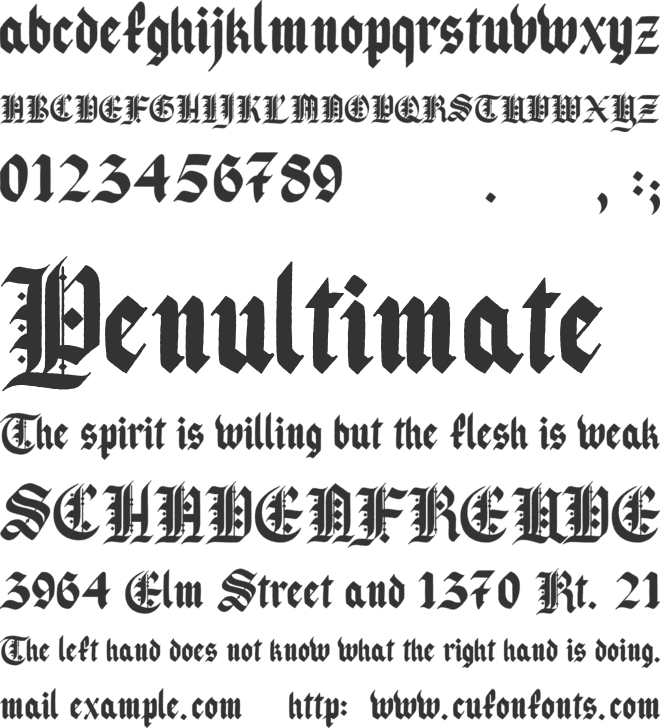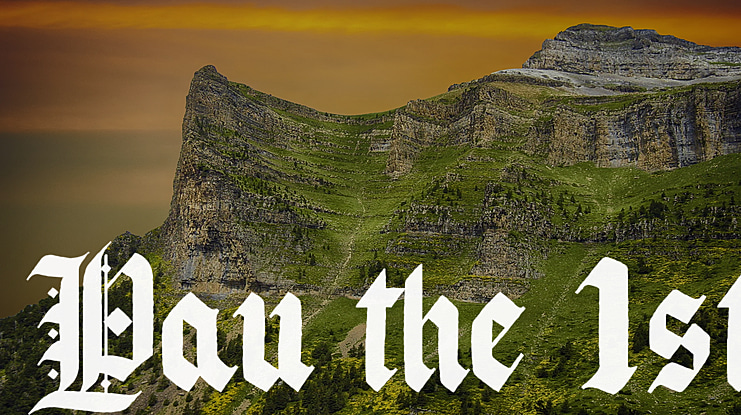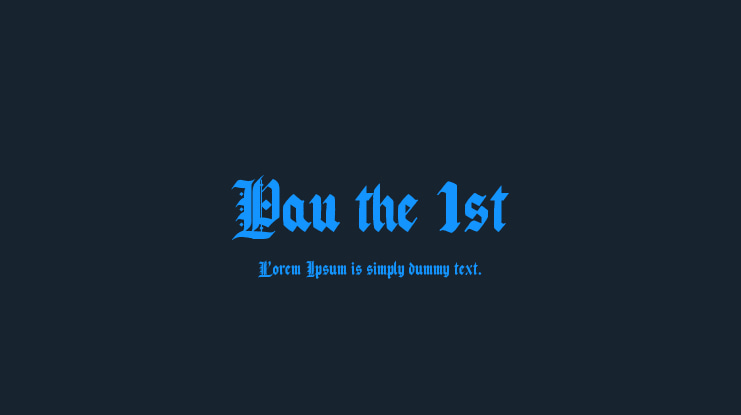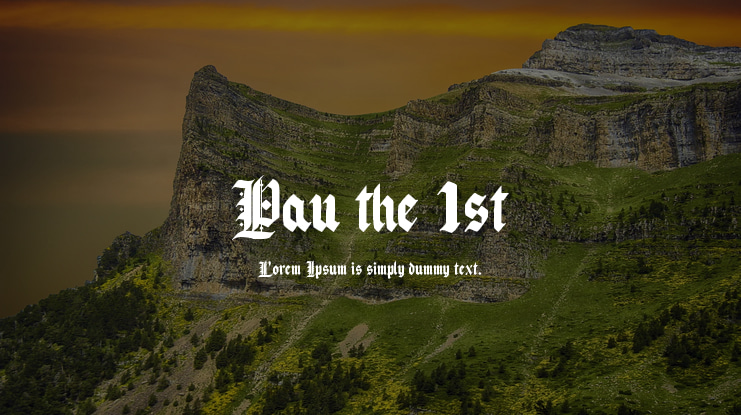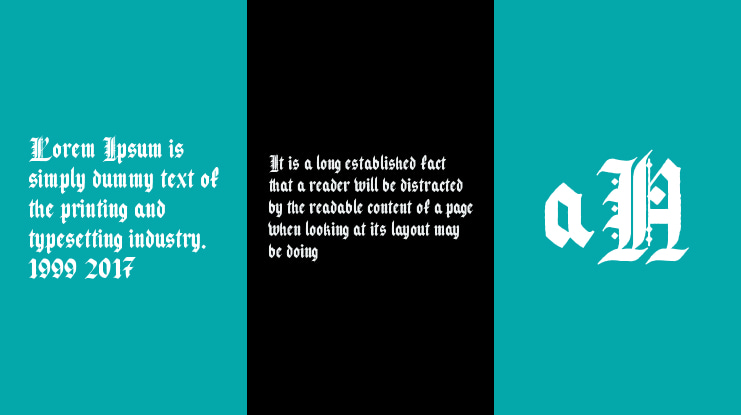
Pau the 1st Font
Pau the 1st, like a medieval king. This is a handmade gothic font made with a Parallel Pen of 6.0mm / angle 45º and vectorized in Illustrator. Feel free to use it for everything you need!